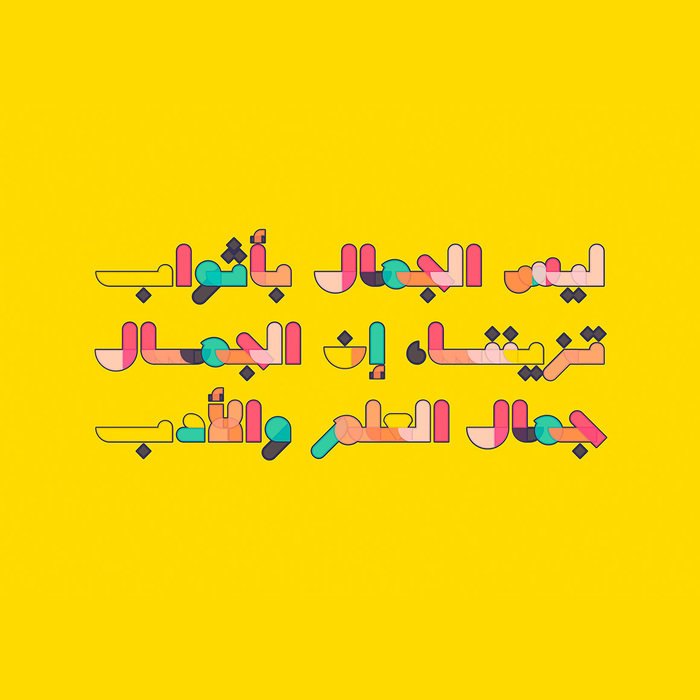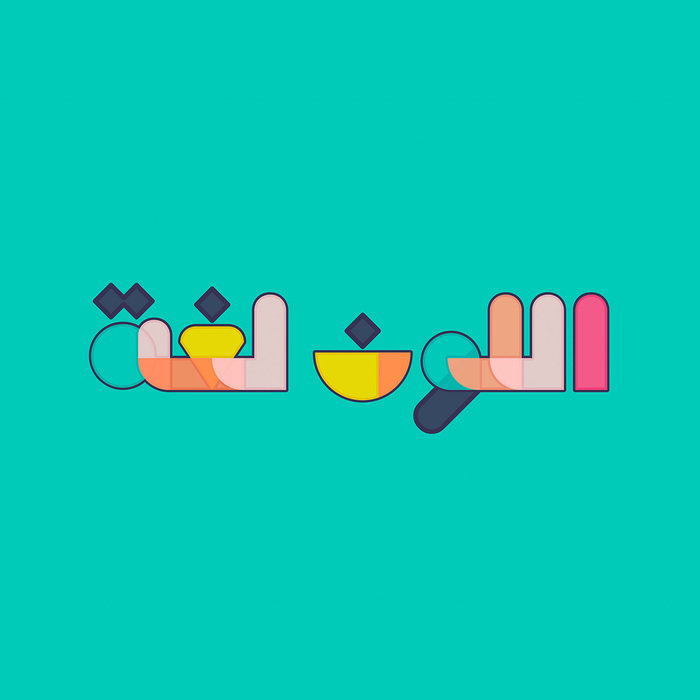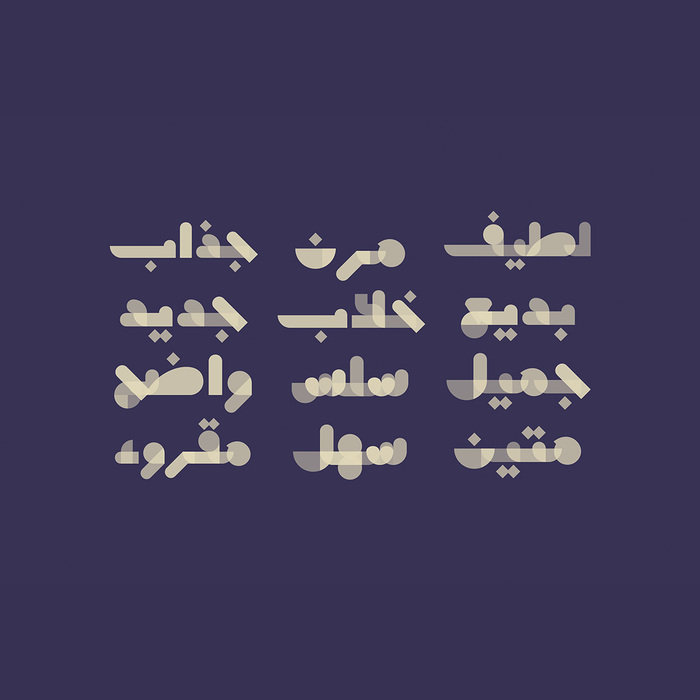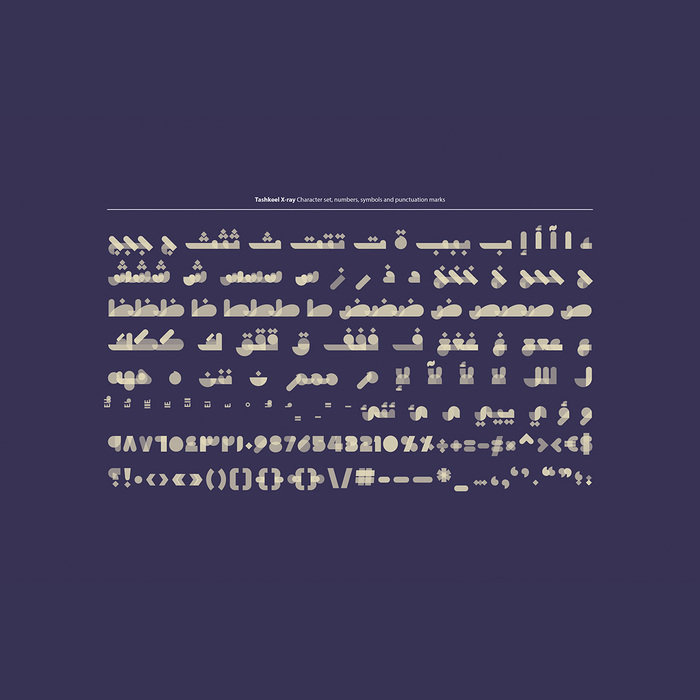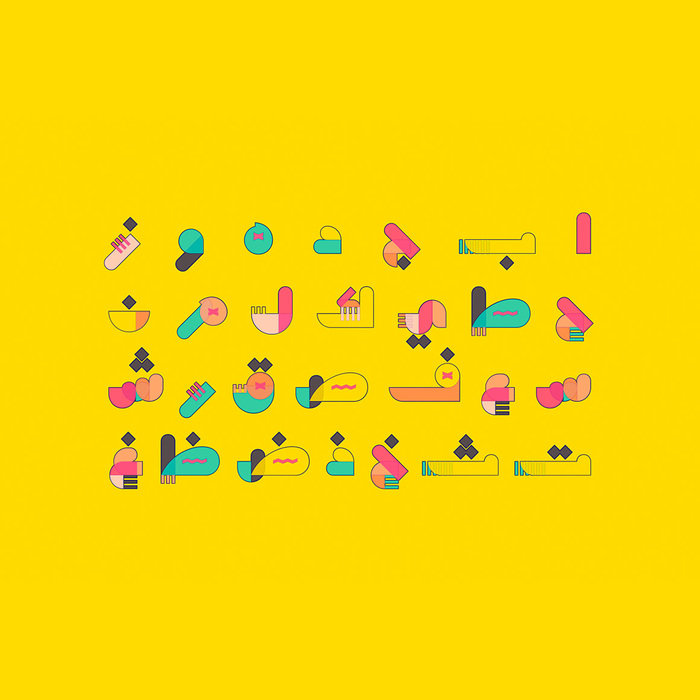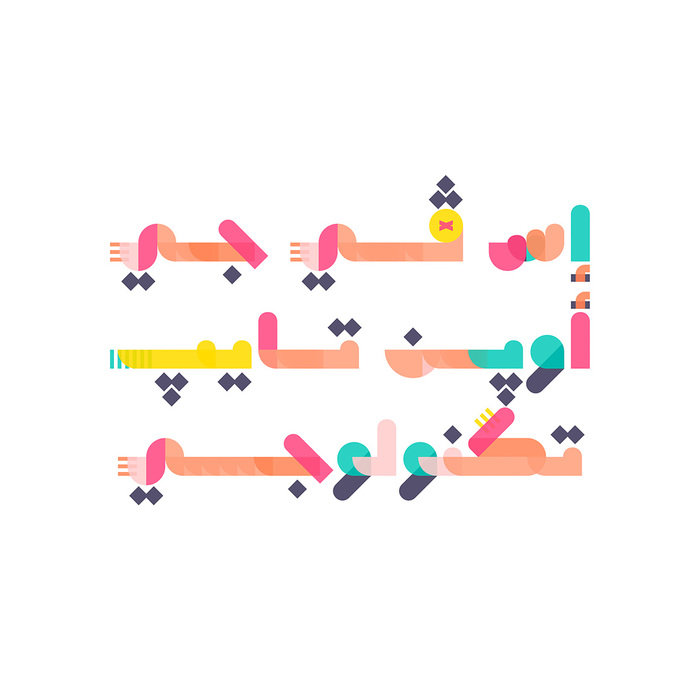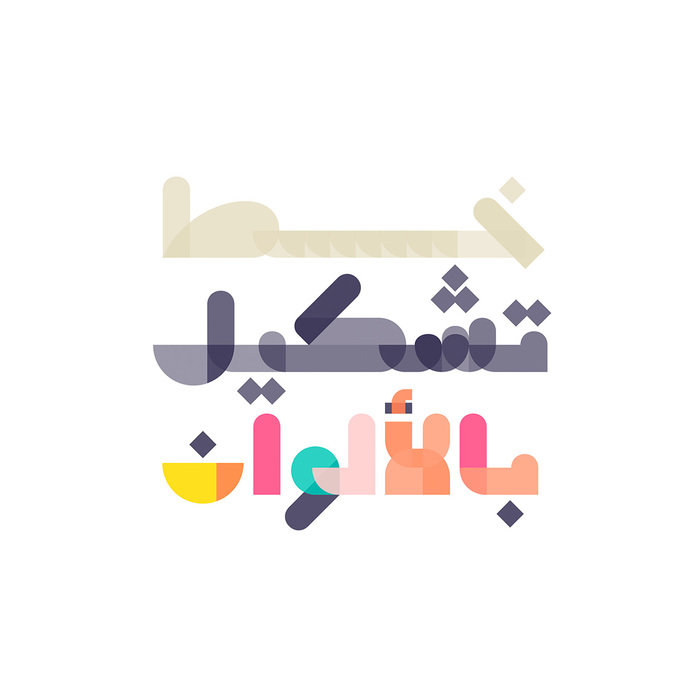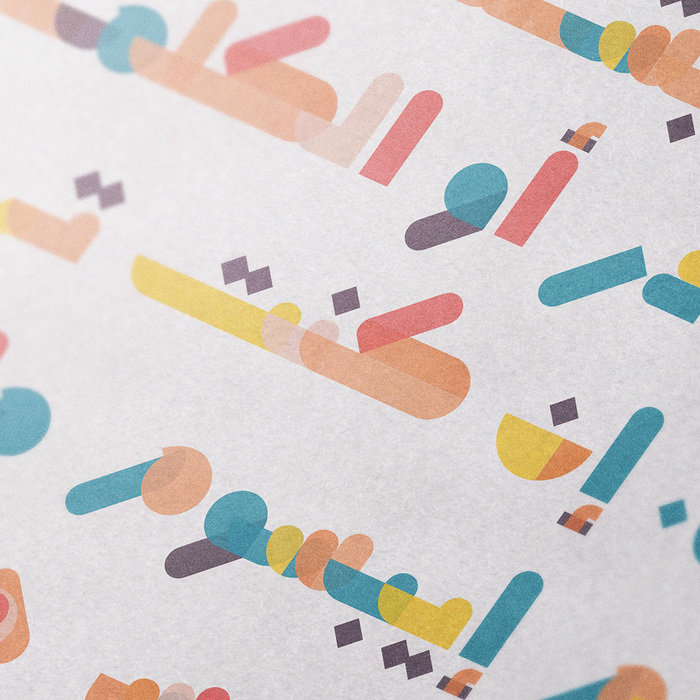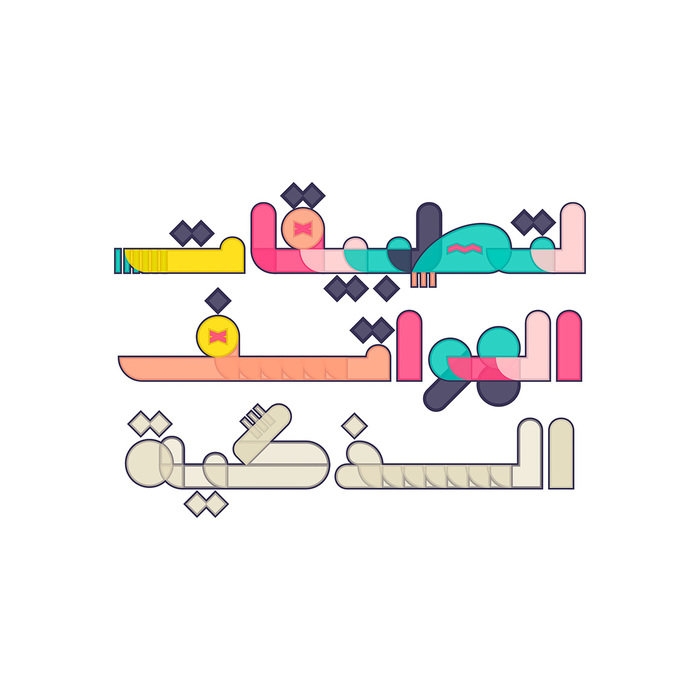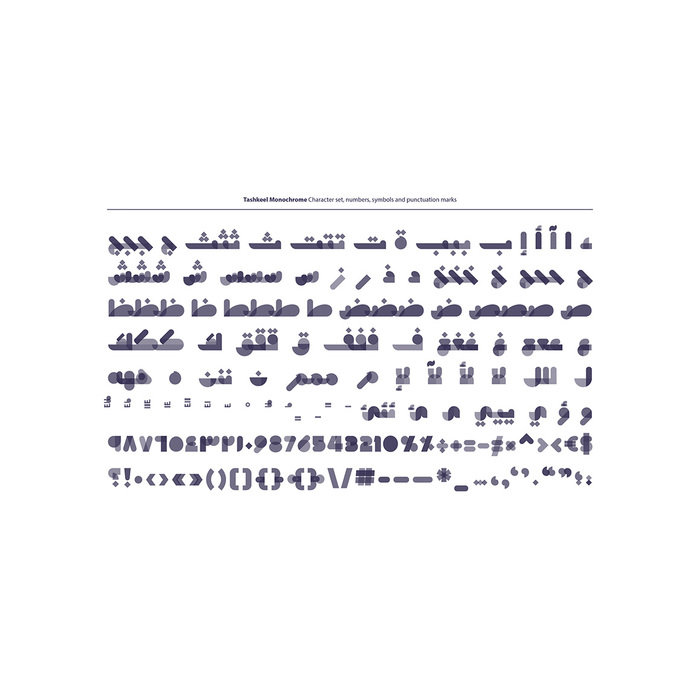
Tashkeel - Arabic Color Font
Tashkeel (which is the Arabic word for Diversification) is an Arabic display font that features colorful translucent letterforms. The font family consists of three styles (Monochrome, Polychrome and Xray). Tashkeel suits modern designs for web, print and mobile applications. It comes in both vector and raster colorfont formats (SVG-OpenType and SBIX).